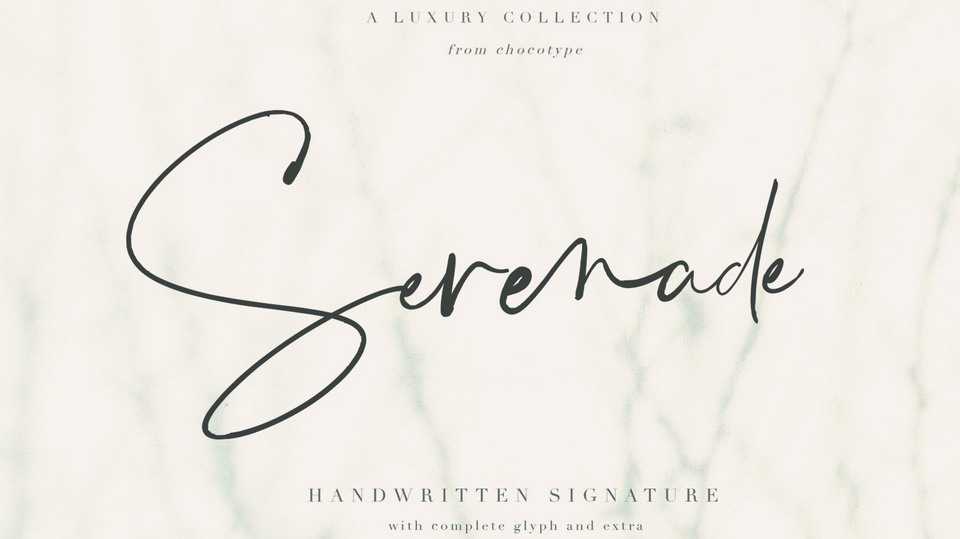
Download Serenade font, a luxury and modern script, consisting of a complete glyph set and many features that making the font look as close to natural handwriting as possible.
Designer: Chocotype